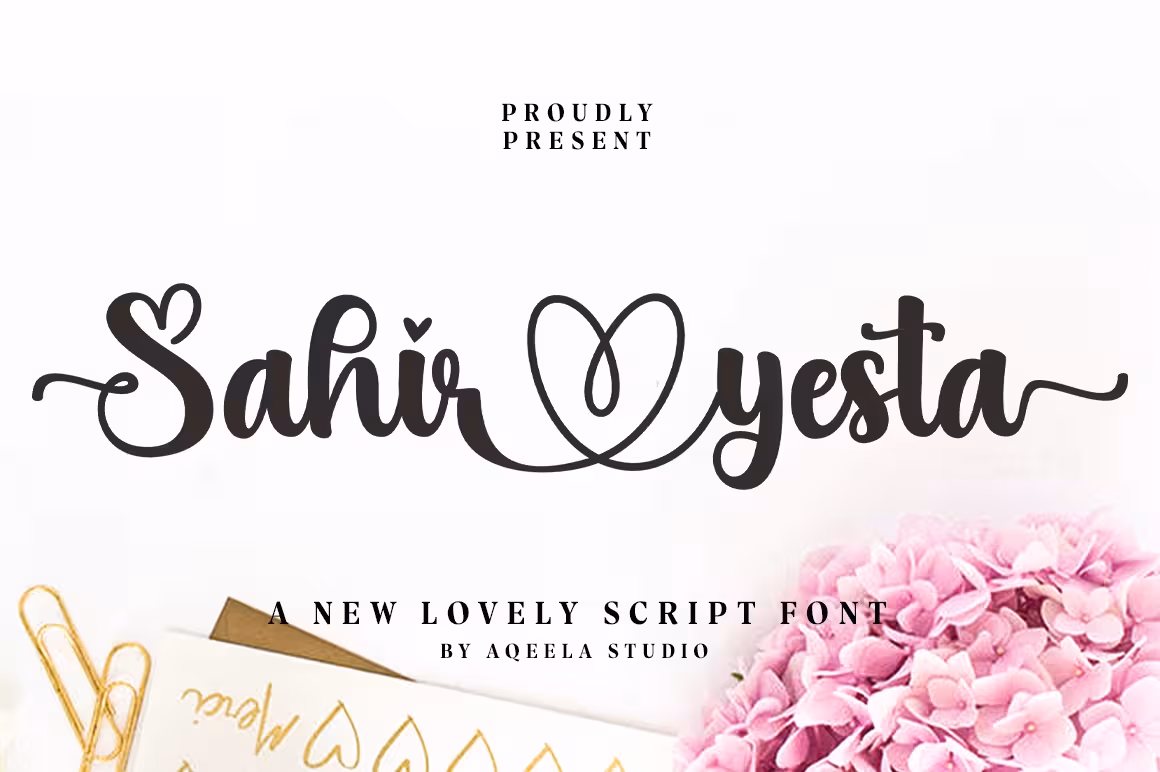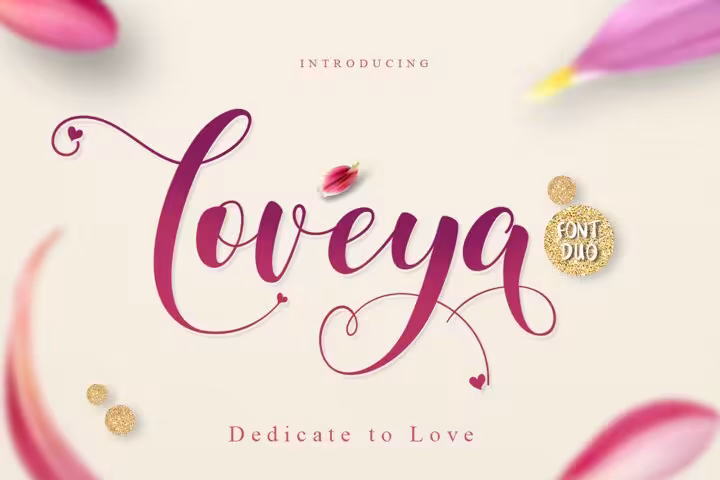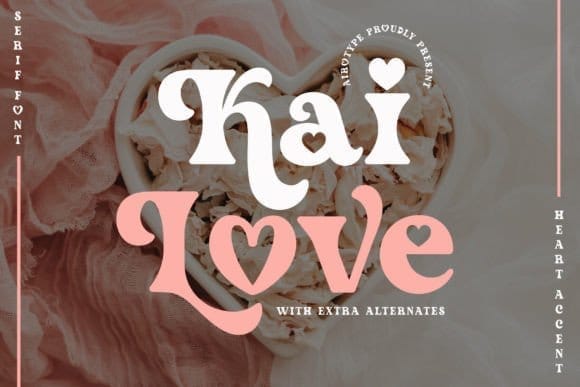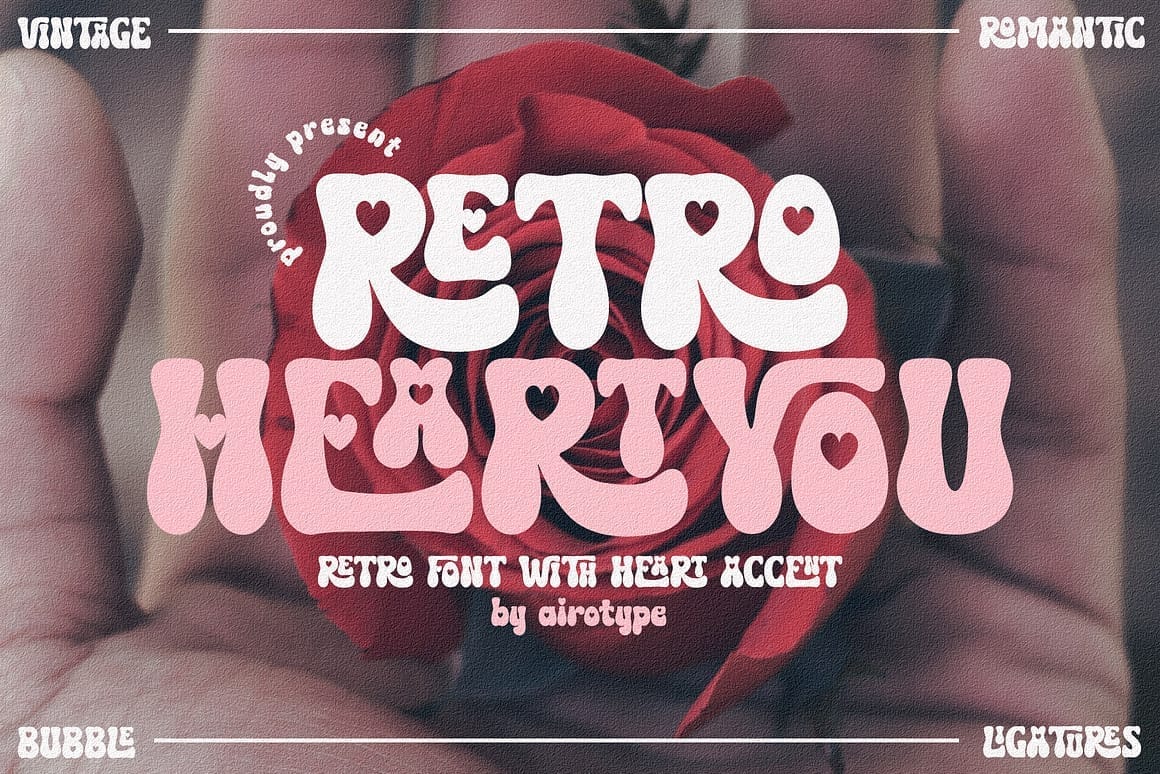
When it comes to adding a touch of love and charm to your designs, nothing works quite like a heart font. These playful typefaces weave heart shapes into their letters or flourishes, instantly making your text feel warm, romantic, and eye-catching. Whether you’re designing a Valentine’s Day card, planning wedding invitations, or creating a cute t-shirt design for your print-on-demand shop, heart fonts are the perfect choice for spreading joy and affection through typography.
The best part? Heart fonts come in a variety of styles—from elegant scripts with delicate heart flourishes to bold, bubbly display fonts filled with heart-shaped details. And with so many free and premium options available online, you can easily find the right font to match your project.
In this guide, we’ll explore what heart fonts are, when to use them, and share a curated list of the best free and premium heart fonts you can download today.
A heart font is a decorative typeface that incorporates heart shapes into its letters or design elements. These fonts often replace dots, swashes, or strokes with tiny hearts, making them ideal for projects that need a playful, romantic, or affectionate feel.
There are a few common styles of heart fonts you’ll come across:
Script fonts with heart flourishes – Flowing, handwritten-style fonts where hearts appear as swashes, ligatures, or above the “i” and “j.” Perfect for wedding invitations or love letters.
Display fonts with built-in hearts – Bold, chunky letterforms filled with heart shapes or with hearts integrated directly into the characters. These are great for t-shirts, posters, and Valentine’s Day designs.
Dingbat or symbol heart fonts – Instead of full alphabets, these fonts include heart icons, patterns, and decorative elements that can be used to complement text.
Because they are designed more for decoration than body text, heart fonts are typically best used for headlines, logos, and short messages where impact matters more than readability.
Heart fonts aren’t just cute—they’re versatile. Their playful and romantic look makes them a go-to choice for many creative projects. Here are some of the most popular ways designers and DIY creators use heart fonts:
Add elegance and romance to invitations, save-the-dates, and thank-you cards. A heart script font instantly communicates love and celebration.
From greeting cards to posters and social media graphics, heart fonts are the perfect match for February 14th projects. Their decorative style makes messages like “Be Mine” or “I Love You” pop with charm.
Many print-on-demand products—like mugs, pillows, and phone cases—use heart fonts to add a cute, emotional touch. Perfect for anniversaries, birthdays, or Mother’s Day gifts.
Bakeries, children’s boutiques, beauty brands, and wedding planners often use heart-inspired fonts in logos and marketing materials to give off a friendly, warm vibe.
Heart fonts stand out in posts, stories, and quotes. They’re especially popular for Instagram and Pinterest content that leans toward lifestyle, fashion, and romance.
Whether you’re cutting vinyl with a Cricut or making handmade cards, heart fonts add an instant decorative touch.
💡 Because heart fonts are decorative, it’s best to use them sparingly—combine them with simpler, easy-to-read fonts to keep your designs balanced.
Looking for the perfect heart font for your next project? Here’s a handpicked list of the best options available online—whether you’re after a free download or a premium font that elevates your designs.
Short Party Lovely Script is a graceful calligraphy font designed with romantic heart swashes that flow naturally between letters. Its elegant strokes make it perfect for wedding invitations, save-the-dates, engagement announcements, and branding projects that need a romantic touch. The font includes heart connecting ligatures, beginning and ending swashes, and multilingual support, giving you plenty of design flexibility.
💡 Best for: Wedding stationery, Valentine’s Day cards, boutique logos, and personalized gifts.
Madelyn Heart Font is a playful yet elegant calligraphy typeface packed with 1,000+ alternate swashes and decorative heart glyphs. Its flowing strokes combined with heart-shaped connectors make it a go-to choice for romantic projects. Whether you’re designing Valentine’s Day cards, wedding invitations, love quotes, or personalized crafts, this font offers endless creative possibilities.
💡 Best for: Wedding stationery, Valentine’s designs, Cricut/Silhouette crafts, greeting cards, and romantic branding.
Mistery Heart is a charming script font designed to add a romantic and personal touch to your projects. Its flowing strokes, elegant curves, and playful heart accents make it a beautiful choice for wedding invitations, branding, greeting cards, and romantic-themed designs. The font blends modern calligraphy with heart-shaped swashes, giving your typography a warm and heartfelt look.